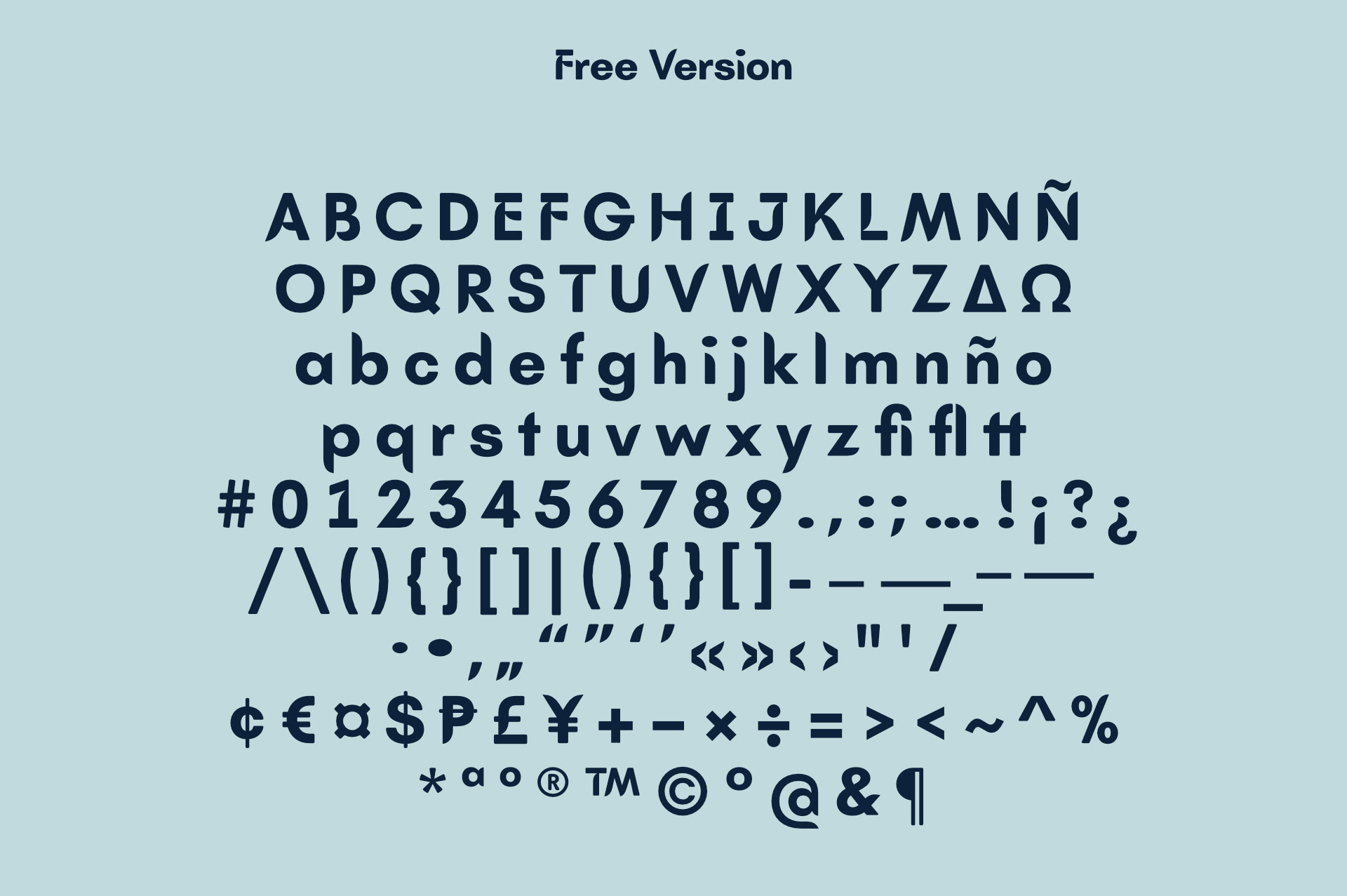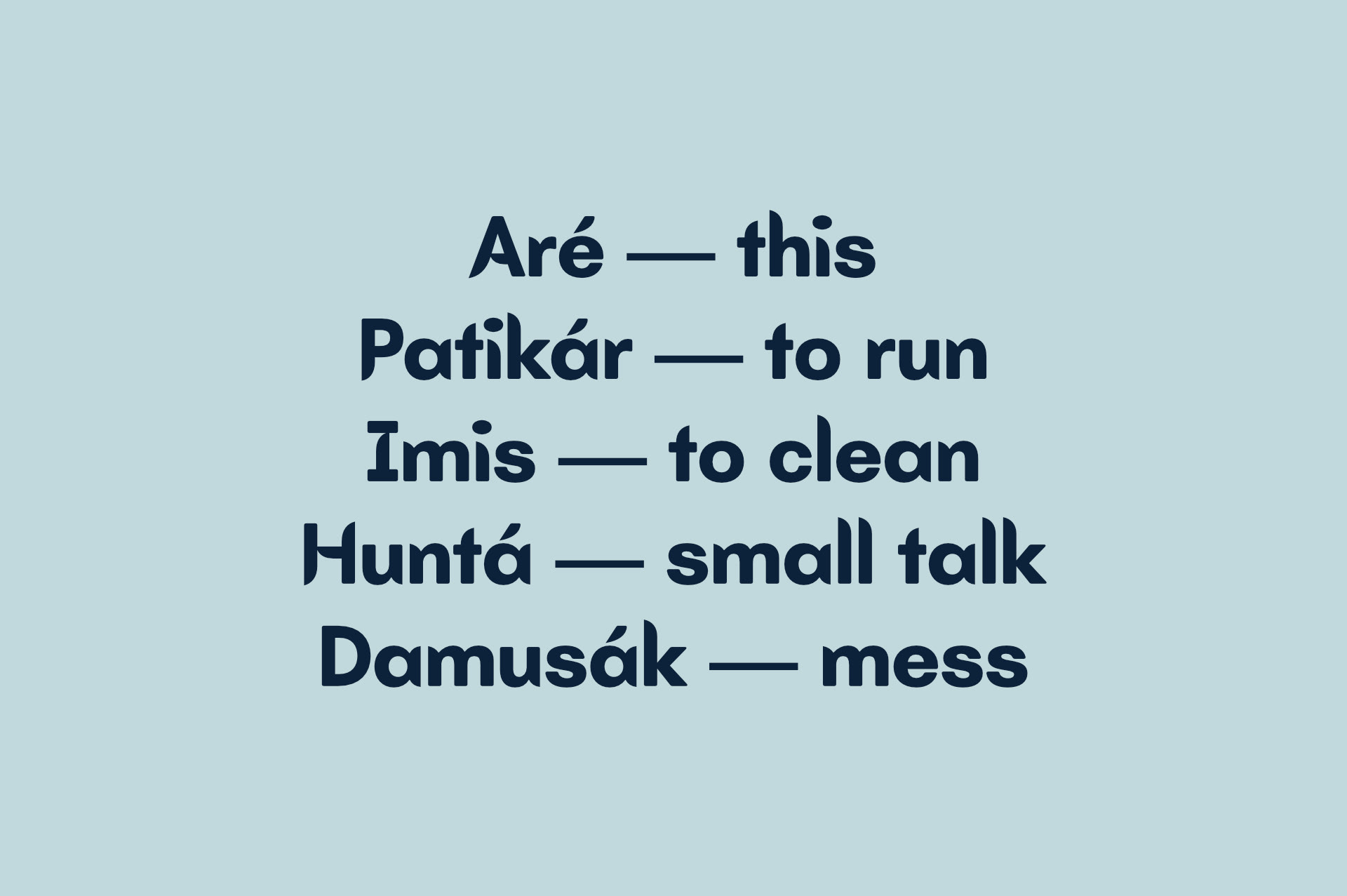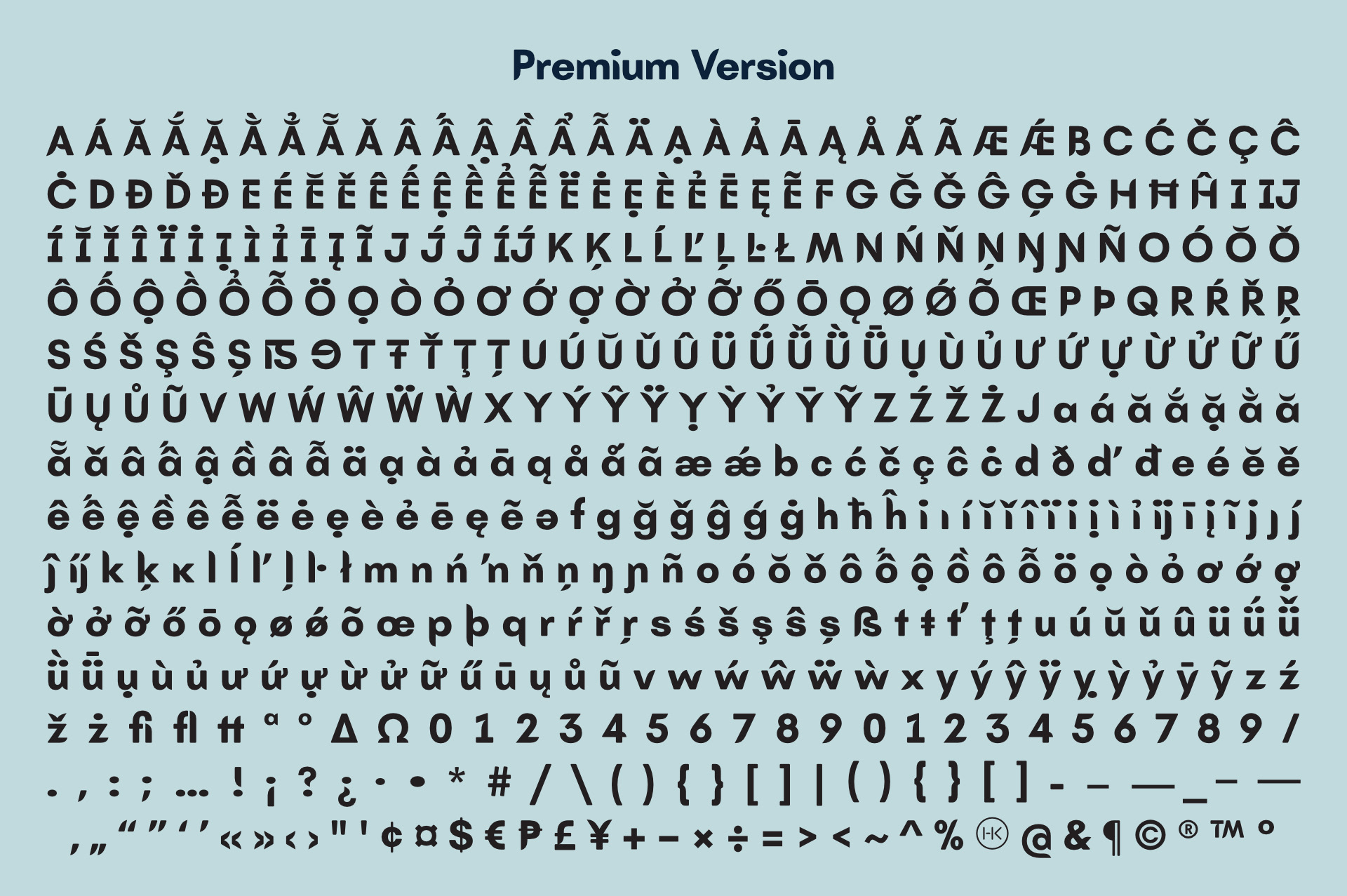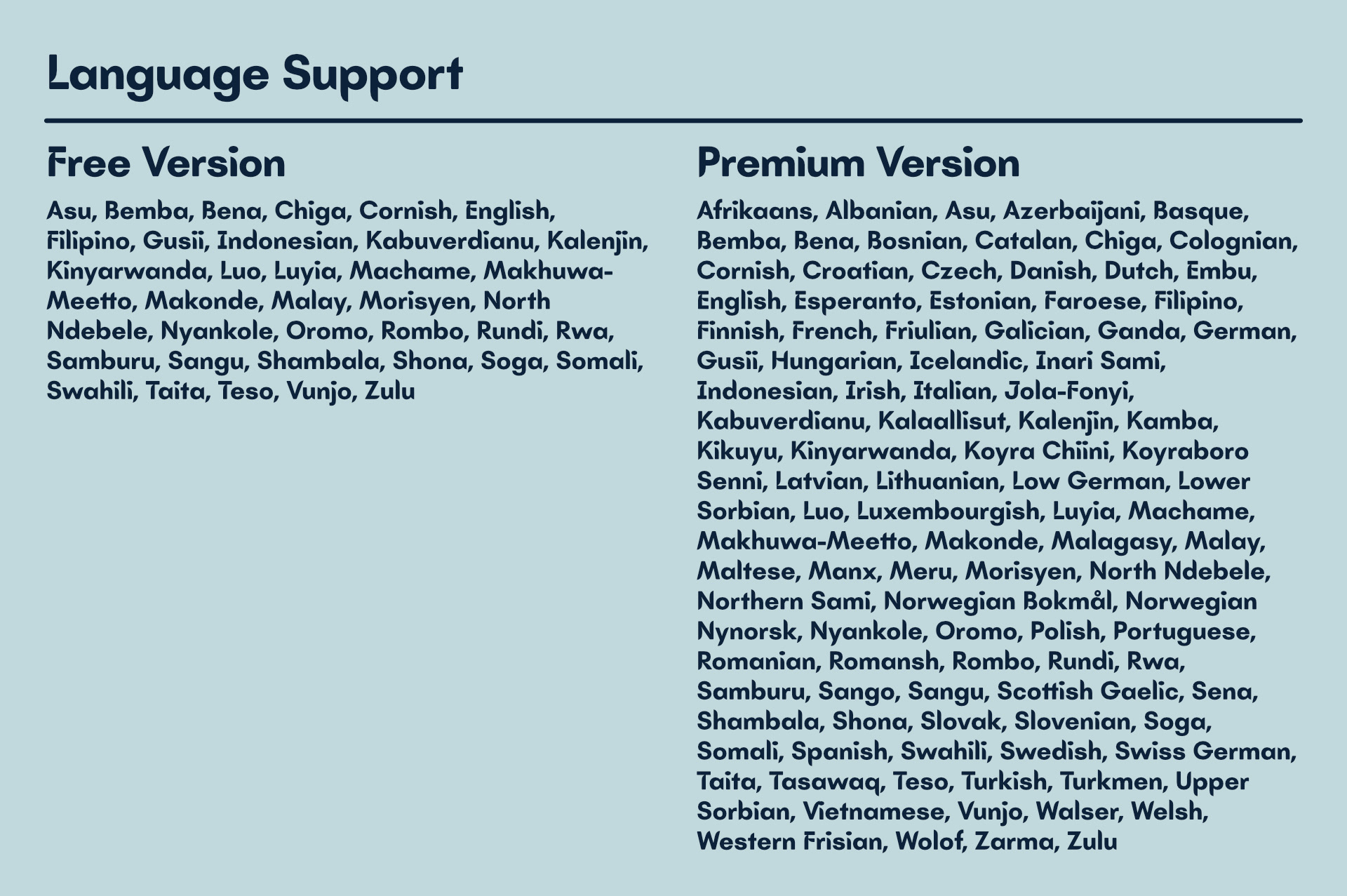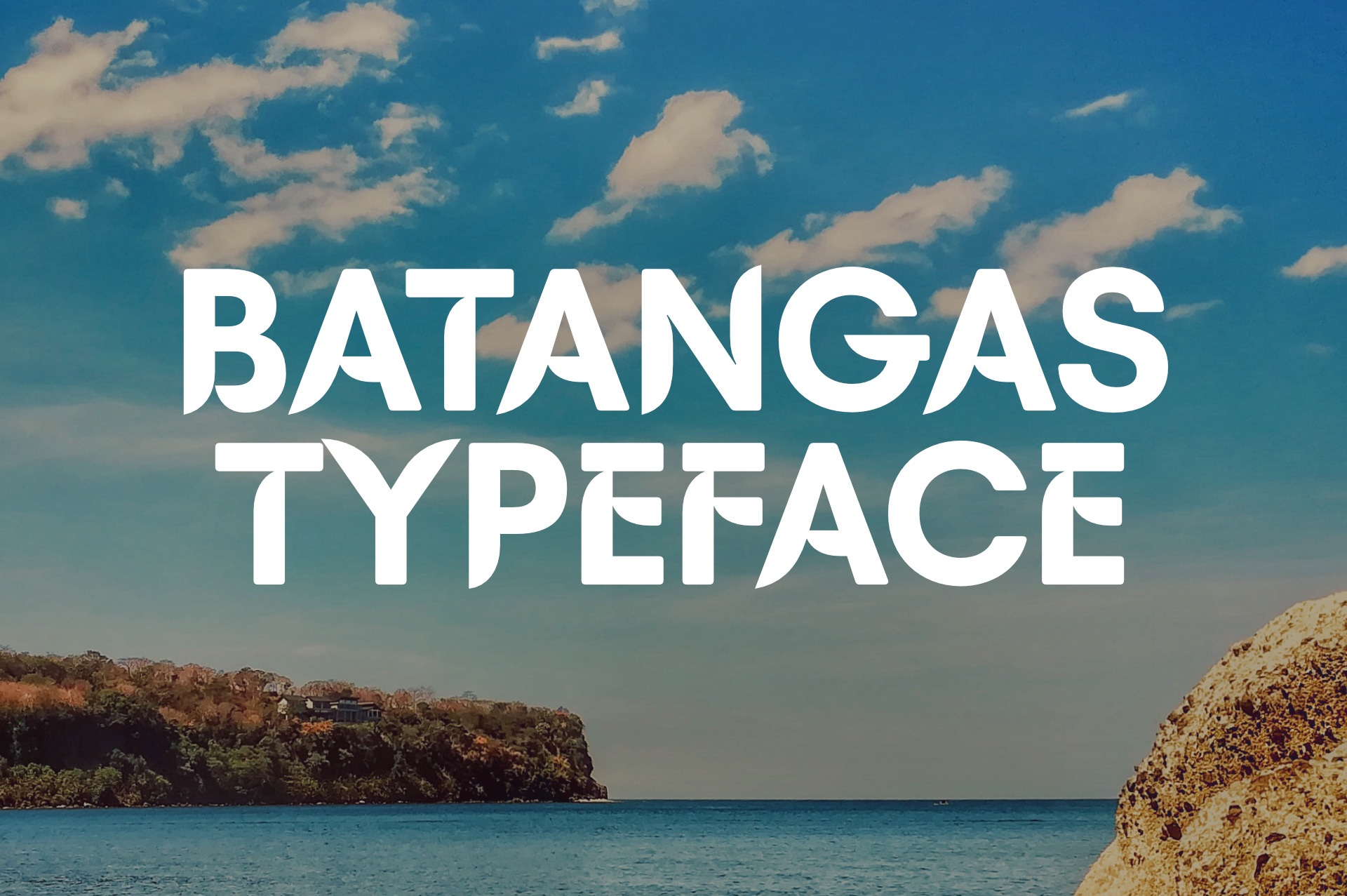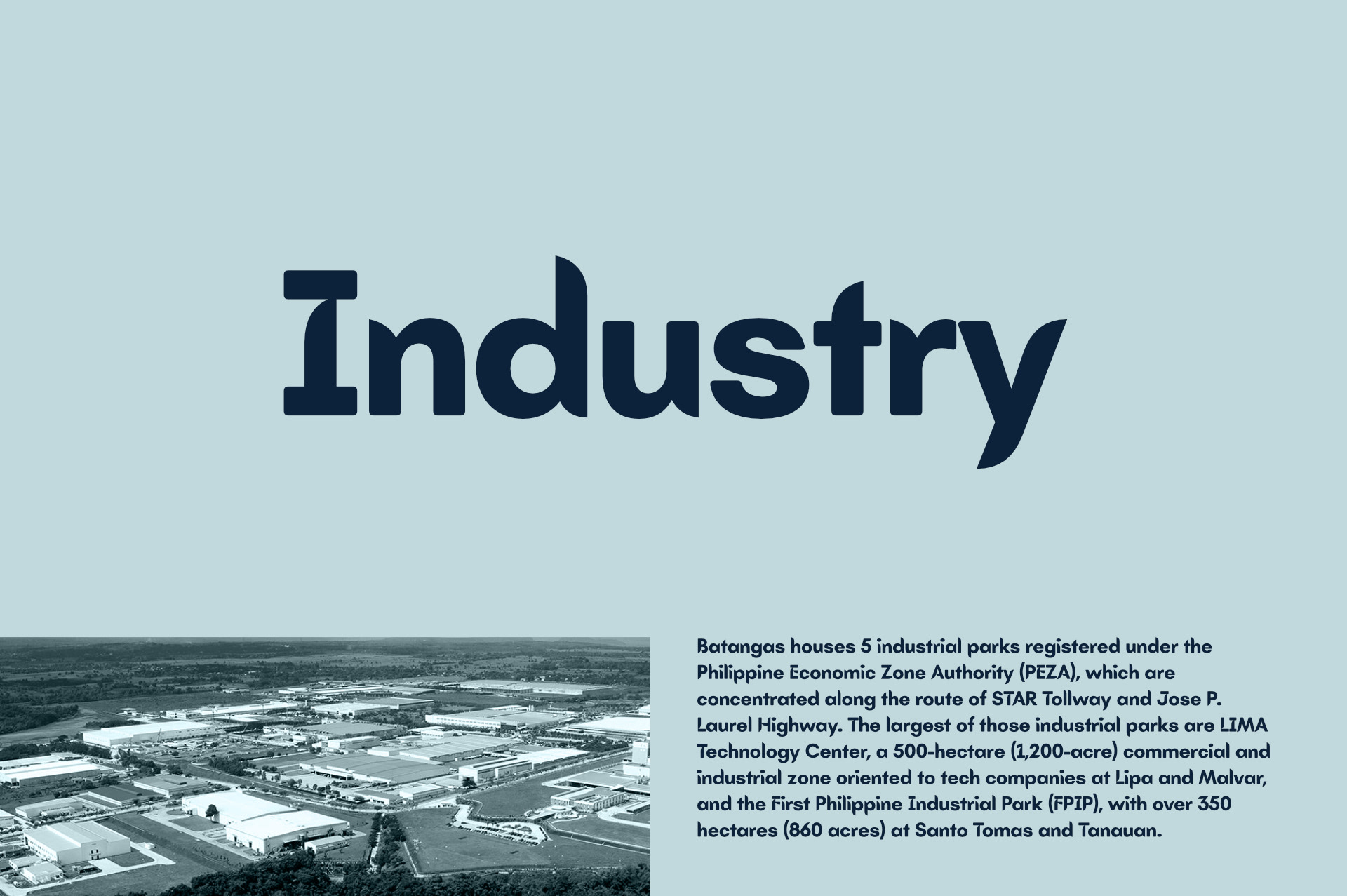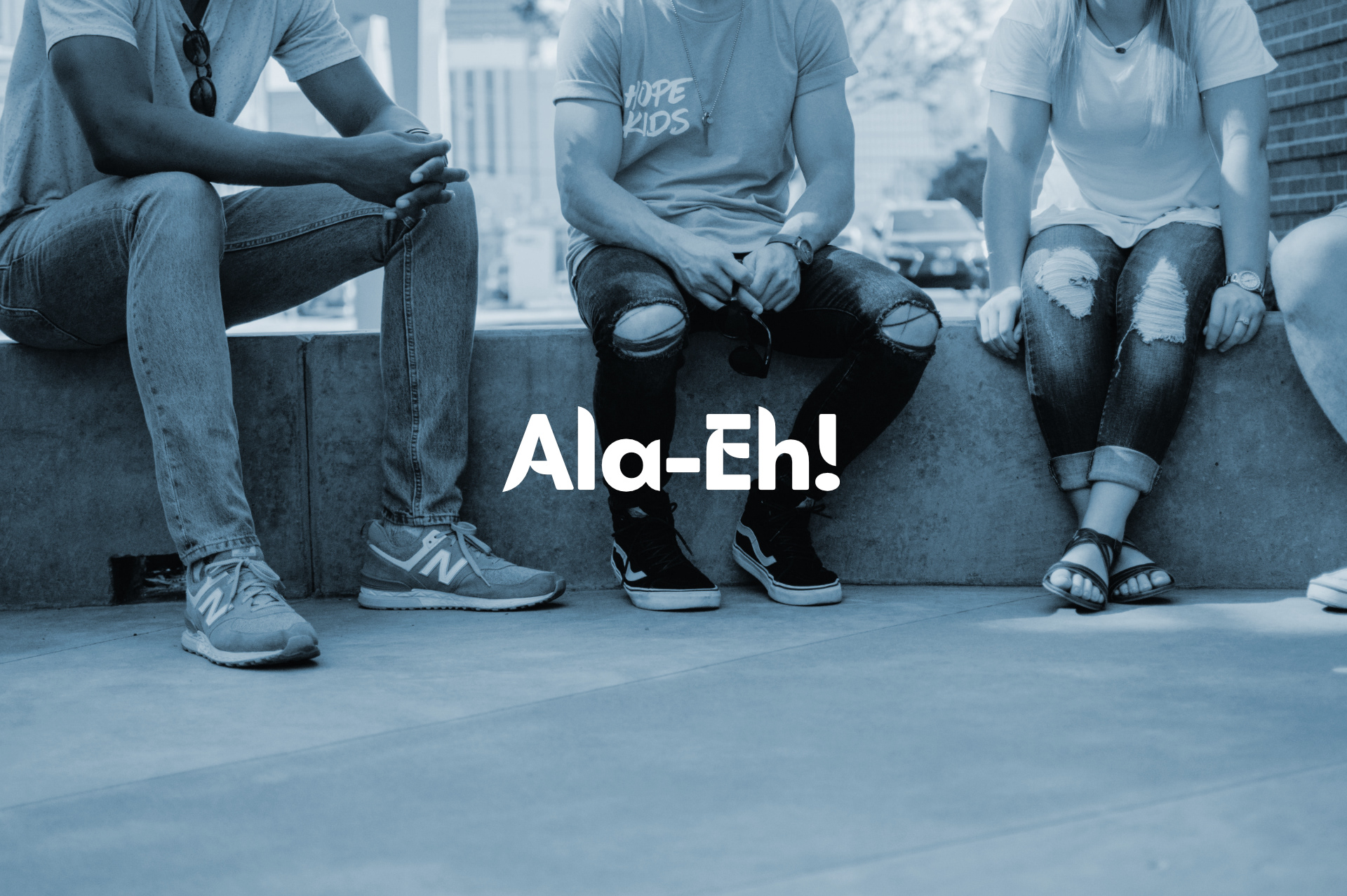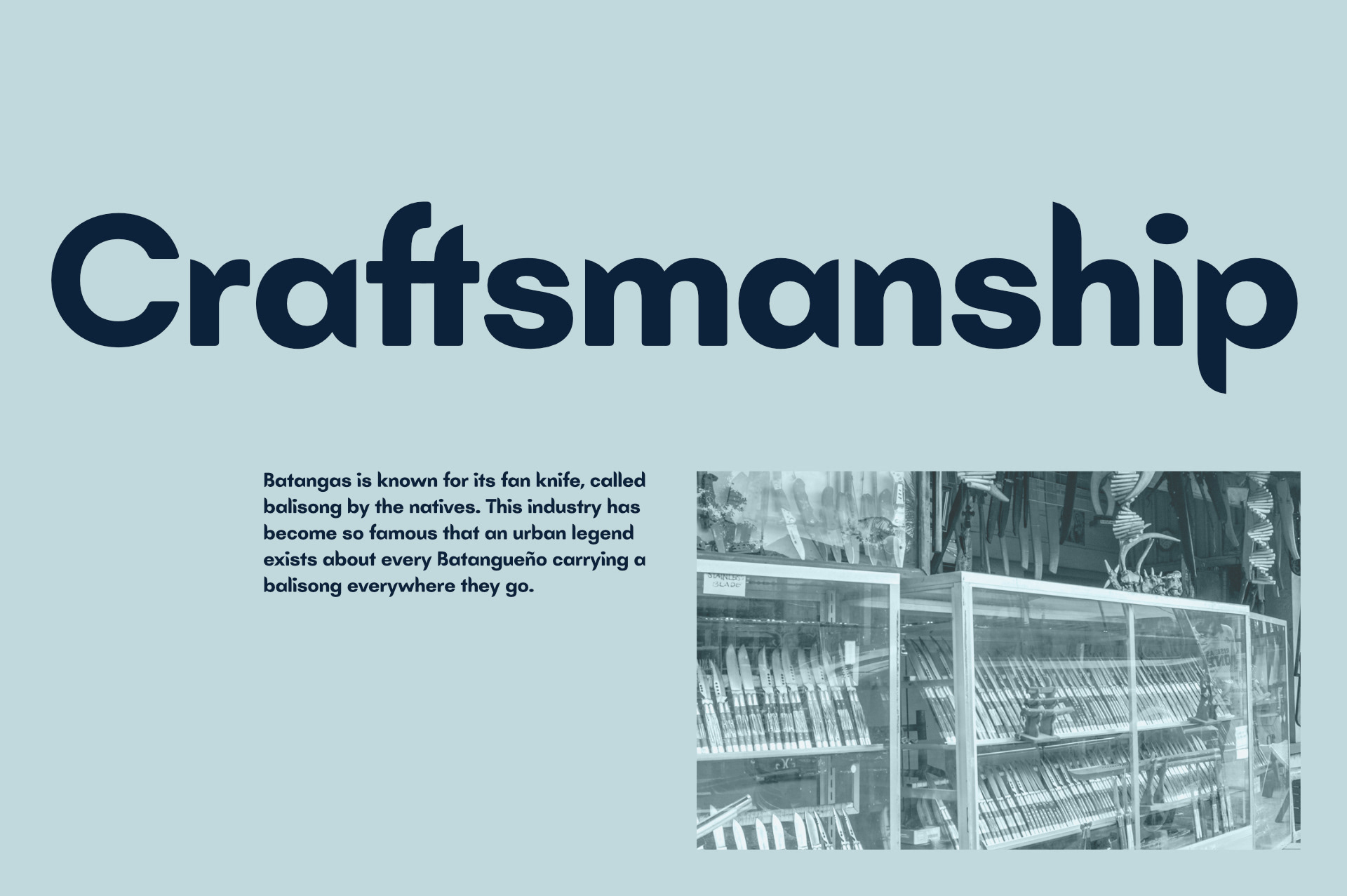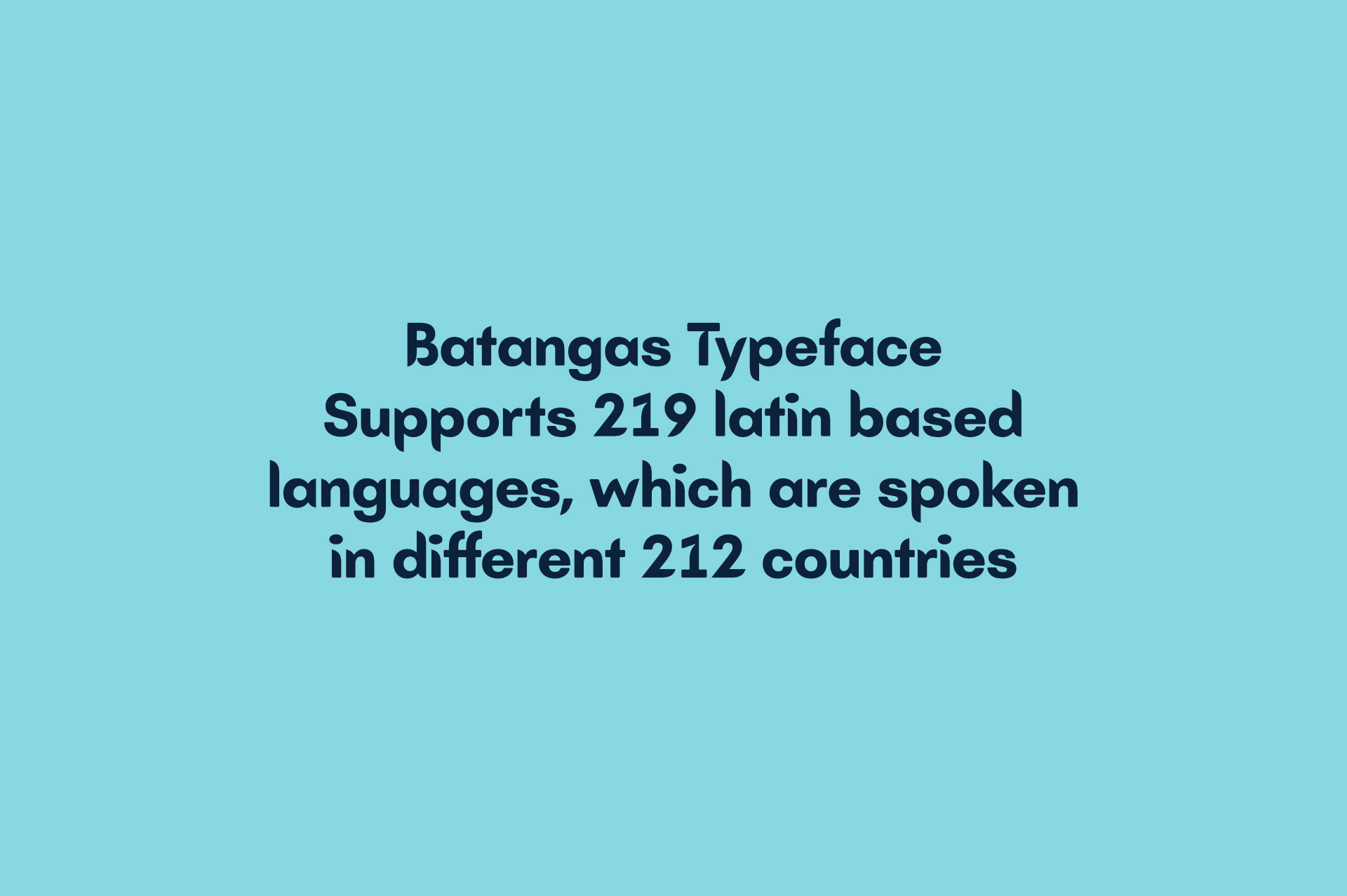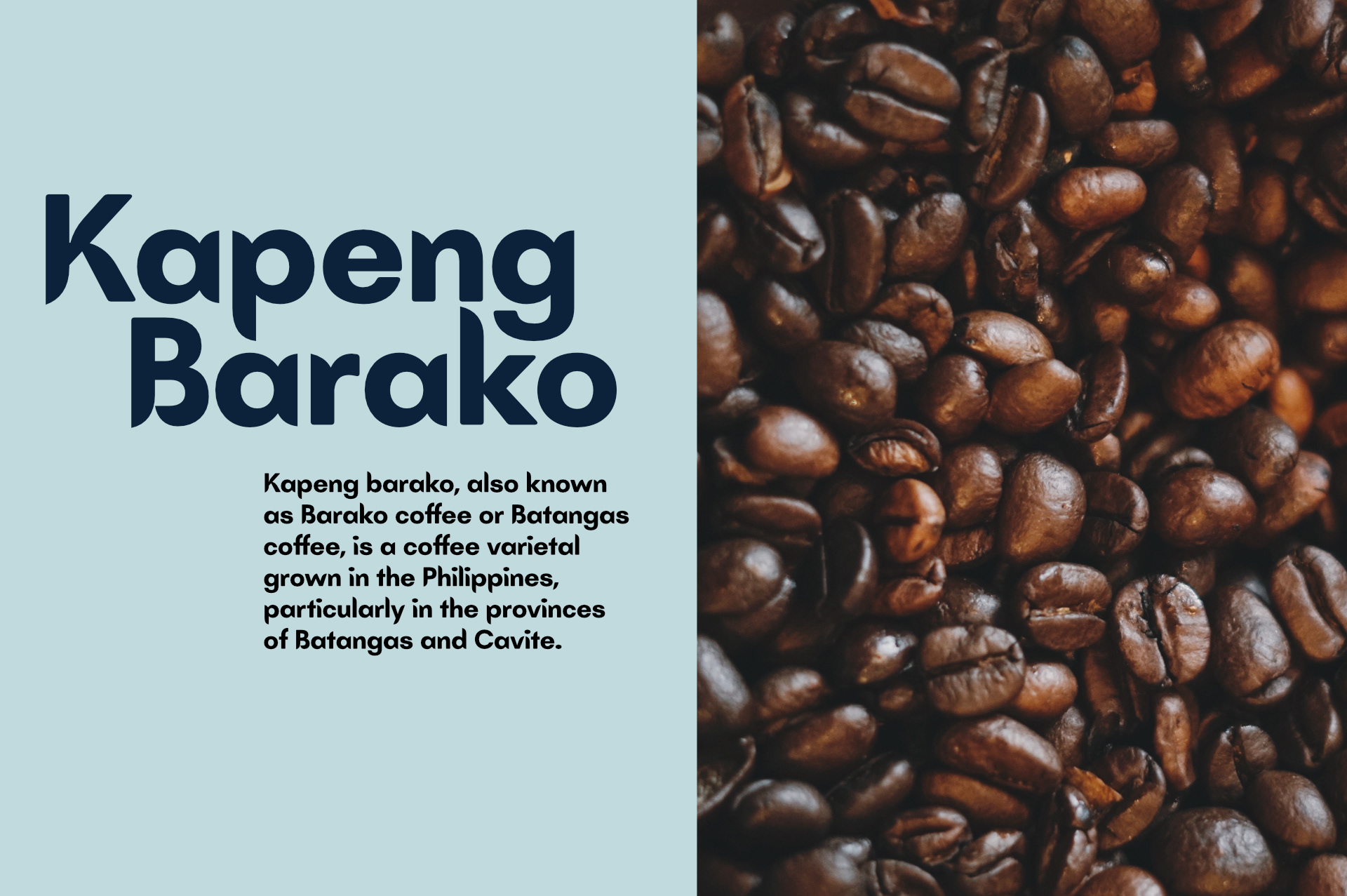
Batangas is a first-class province of the Philippines located on the southwestern part of Luzon in the CALABARZON region. It is best known for its century-old churches, a volcano within a lake, pristine beaches, world-class diving spots, a strong accent, and the balisong.
Batangas typeface was inspired by the strong character of the people of Batangas (Batangueños). This is evident in their culture, traditions, and iconic symbols.
Class: Sans Serif
Styles: Bold